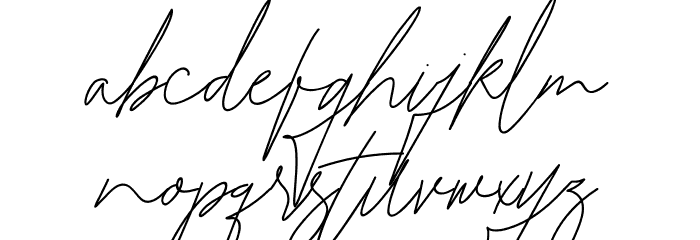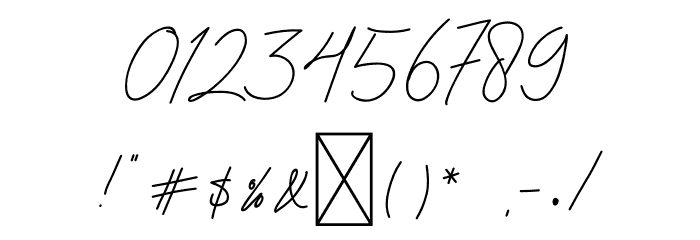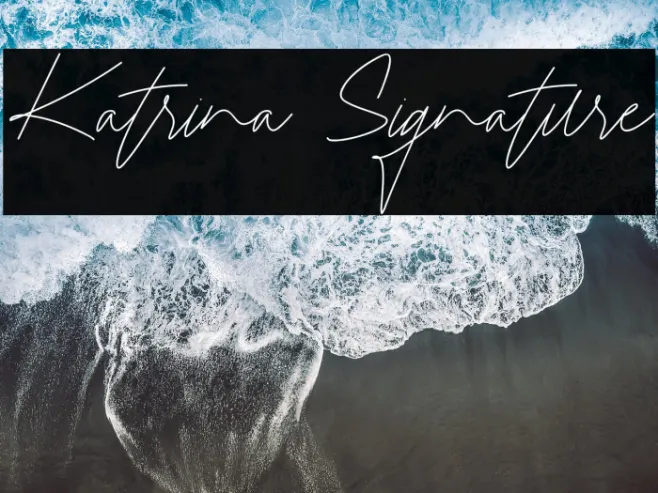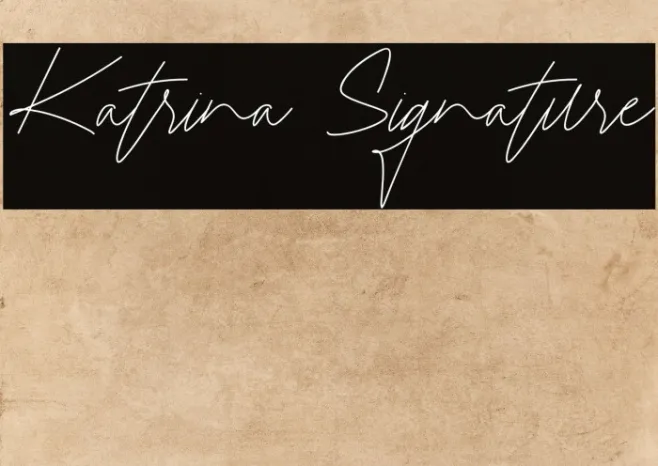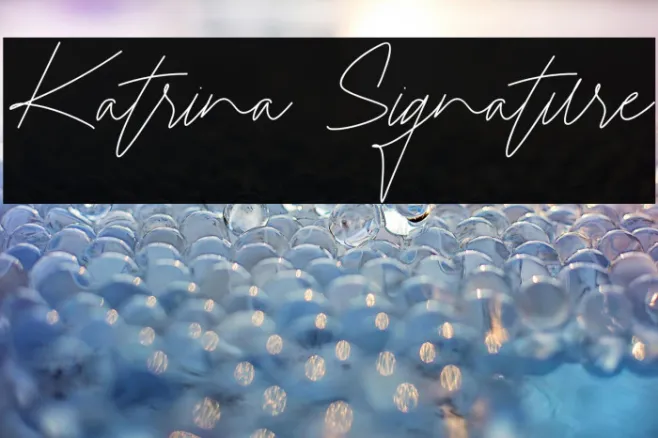
Katrina Signature Font
This font exudes a personal and elegant touch, characterized by its fluid, cursive style that mimics natural handwriting. The letters are gracefully connected, creating a seamless flow that is both sophisticated and approachable. The uppercase letters maintain a consistent height, while the lowercase letters feature distinctive loops and swirls, adding to the font's charm. The numerals and special characters are crafted with the same attention to detail, ensuring a cohesive look across all elements. This font is ideal for projects that require a personal, handwritten feel, such as invitations, greeting cards, or branding materials.
A fluid, cursive font with a personal, handwritten style.
- Proposed Projects: Ideal for invitations, greeting cards, branding, and personal notes.
- Overall Style: Elegant, Personal
- Use Case: Logos, Invitations, Personal notes